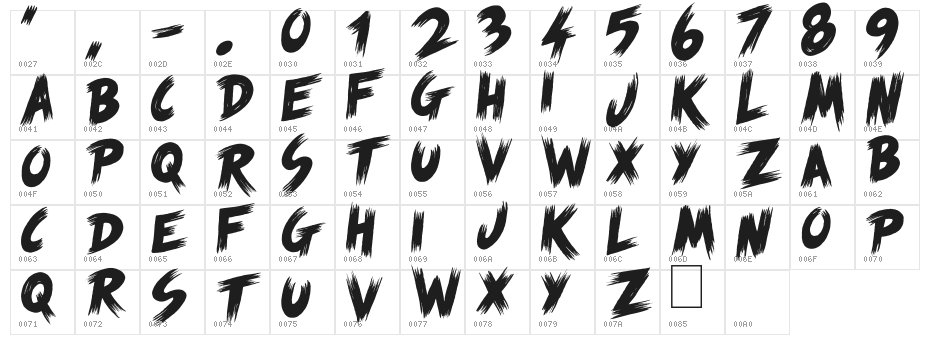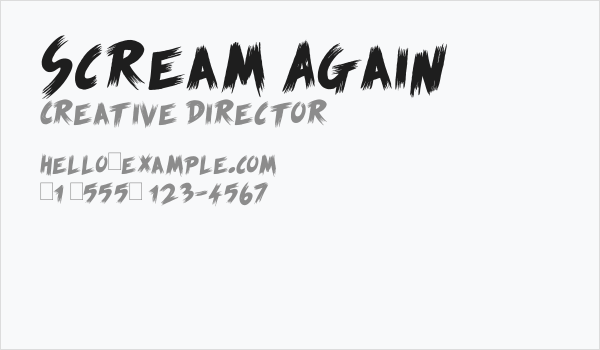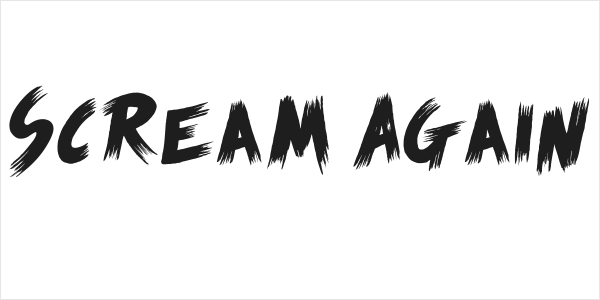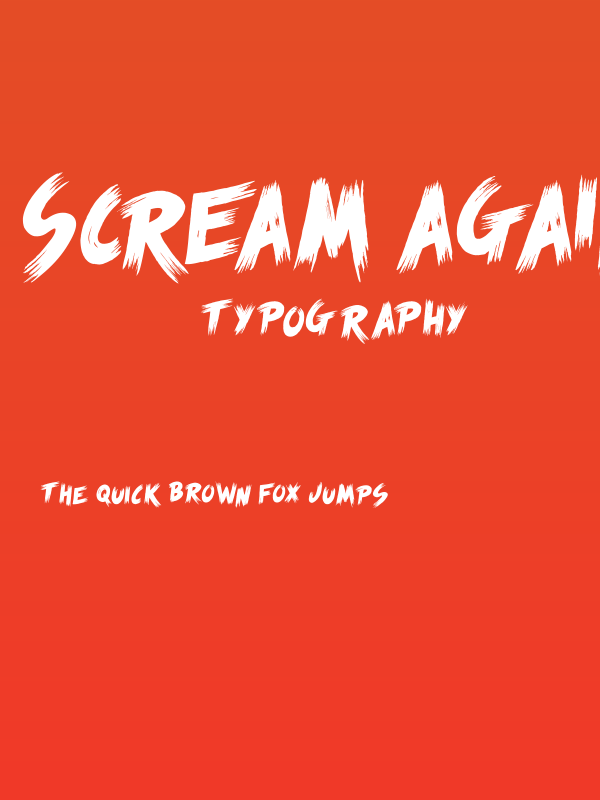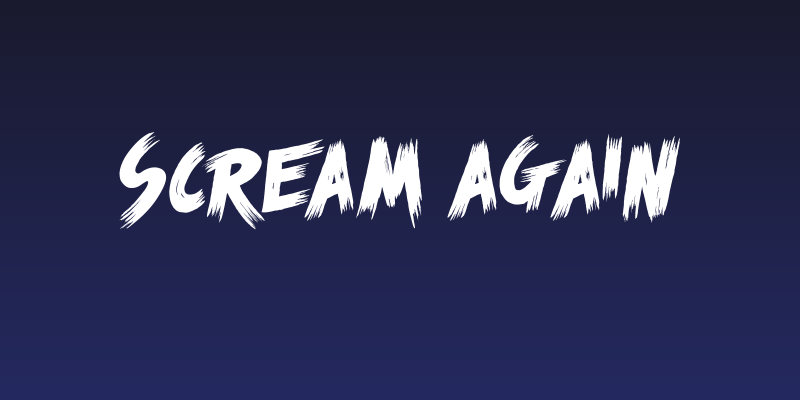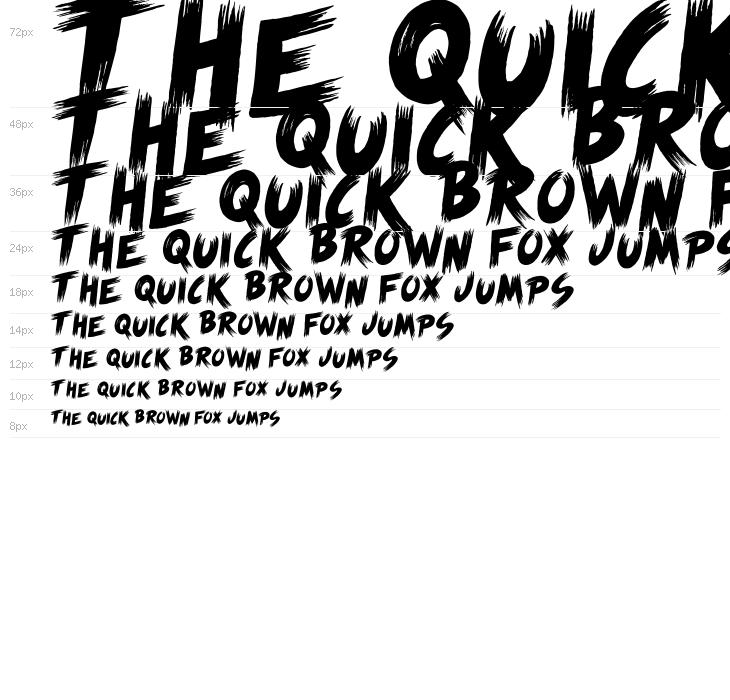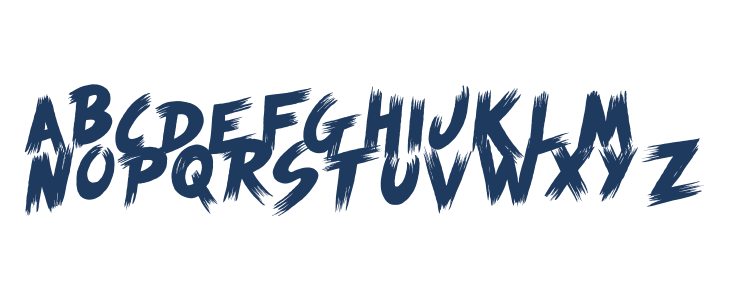
Scream Again Font
| Cas d'utilisation | Headlines, Posters, Branding |
| Projets proposés | Ideal for horror movie posters, Halloween event flyers, edgy branding, or any project needing a dramatic and energetic typeface. |